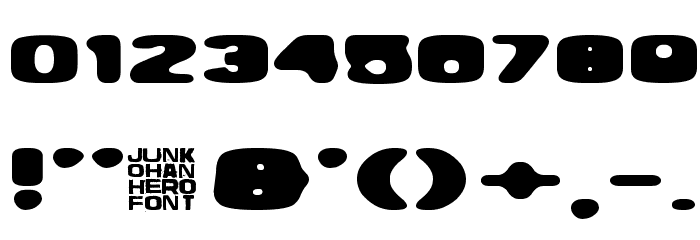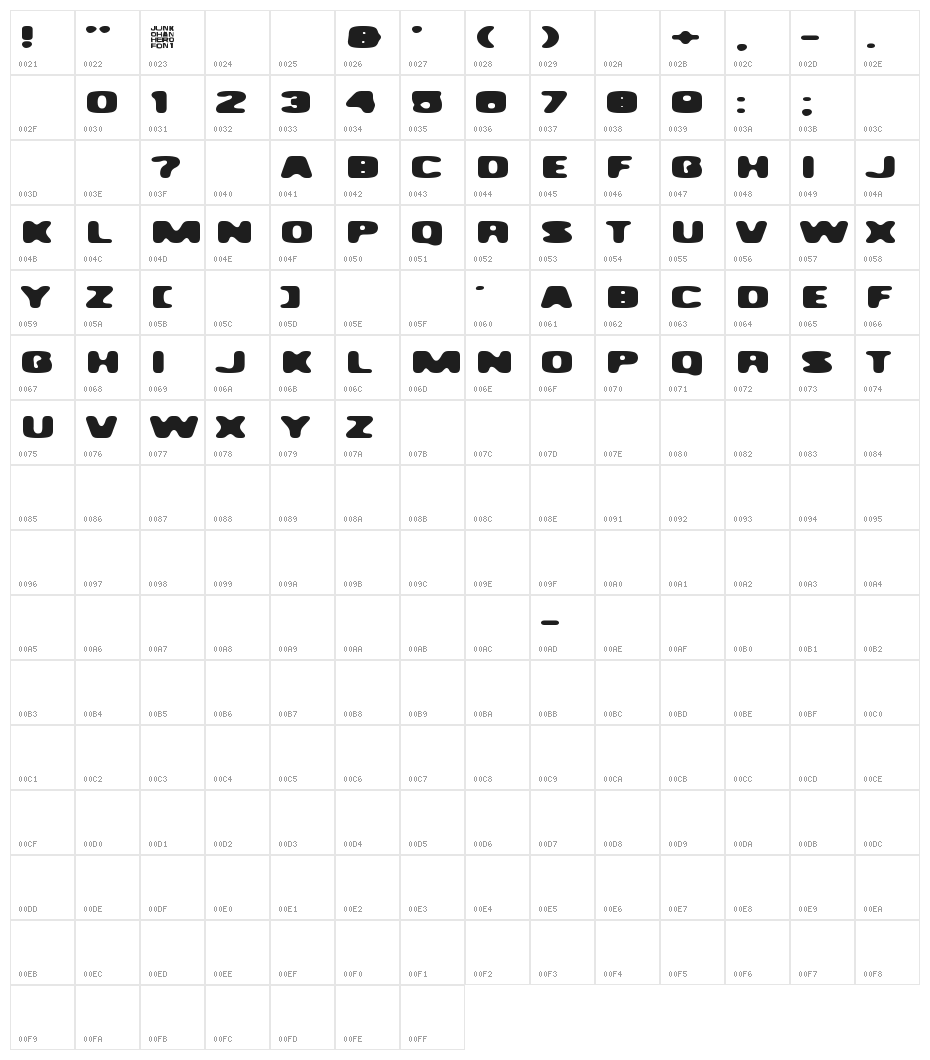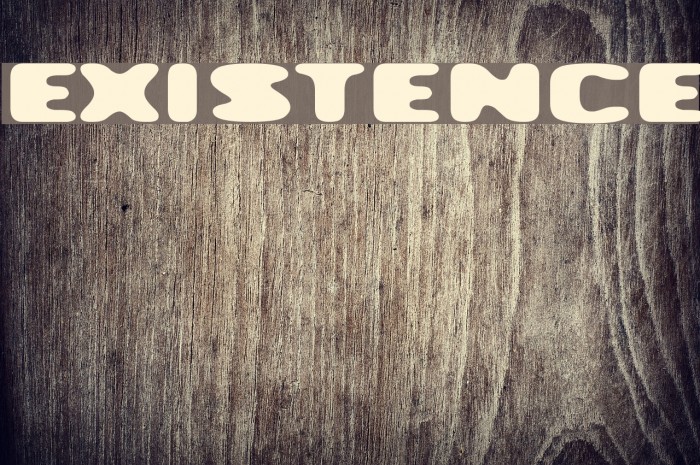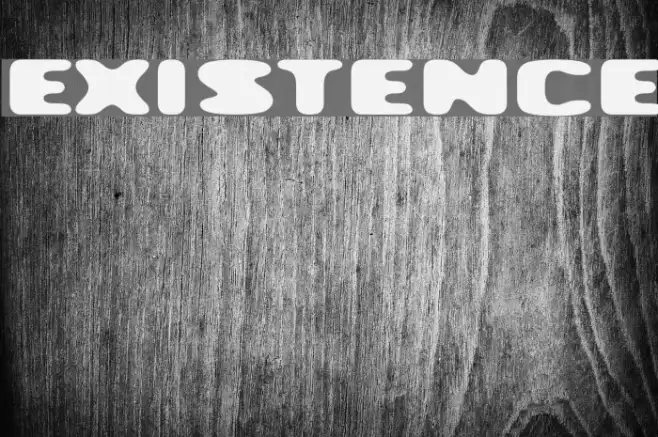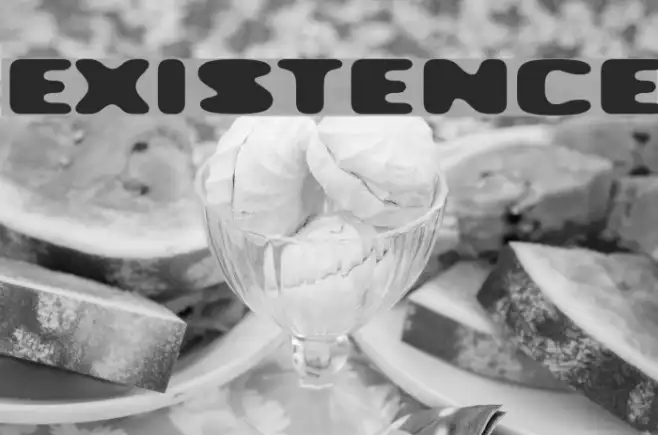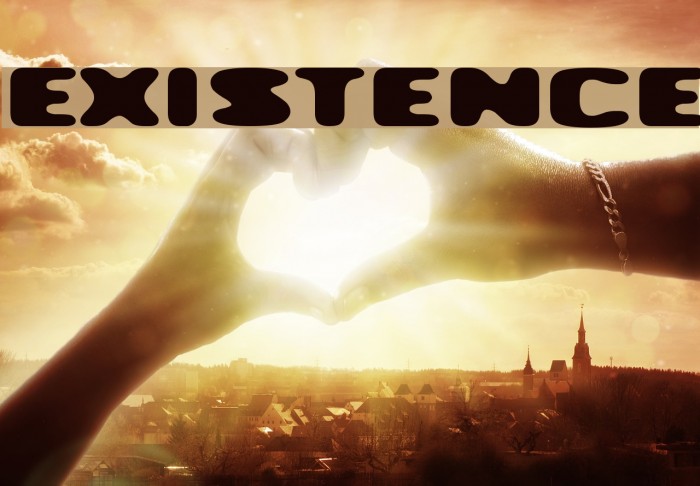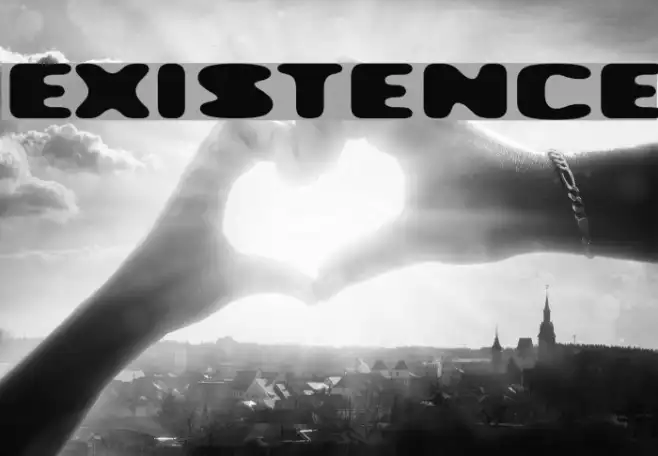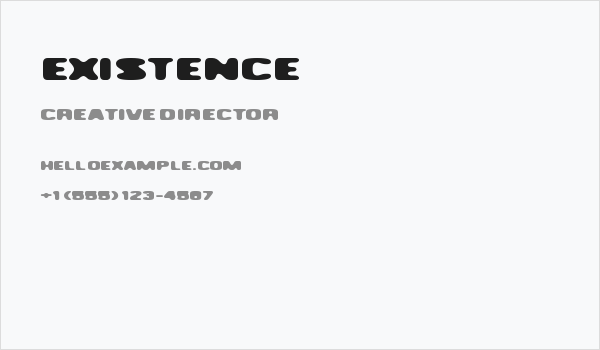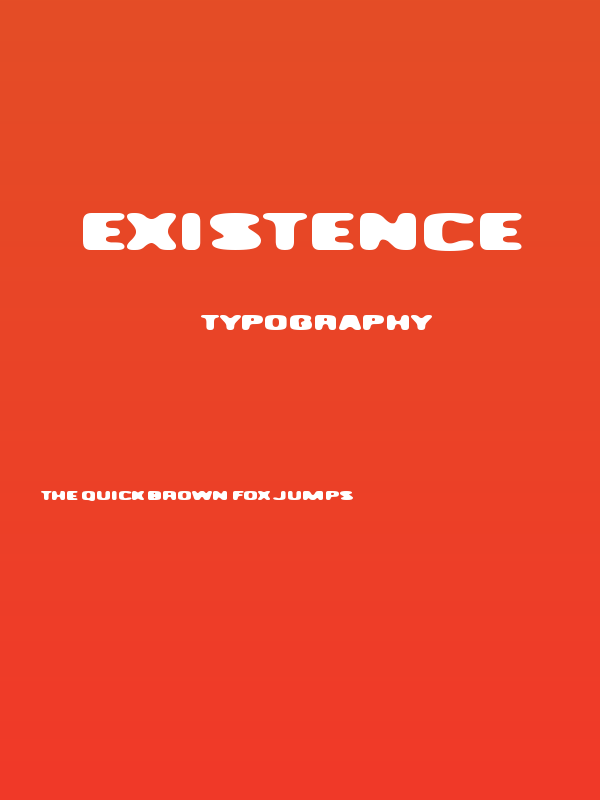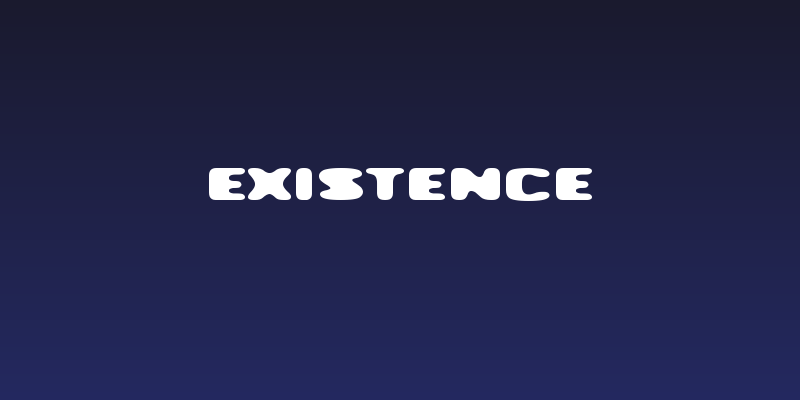
Existence Font
Existence Description
This font features a bold, rounded style with a playful and chunky appearance. The characters are uniformly thick, giving it a strong presence. The rounded edges and consistent stroke width create a friendly and approachable look, making it ideal for designs that require a touch of whimsy. The font maintains a consistent height across all characters, ensuring readability while adding a unique flair. Its boldness and distinct style make it stand out, perfect for capturing attention in various design contexts.
| Proposed Projects | Ideal for children's books, playful branding, posters, and creative advertising. |